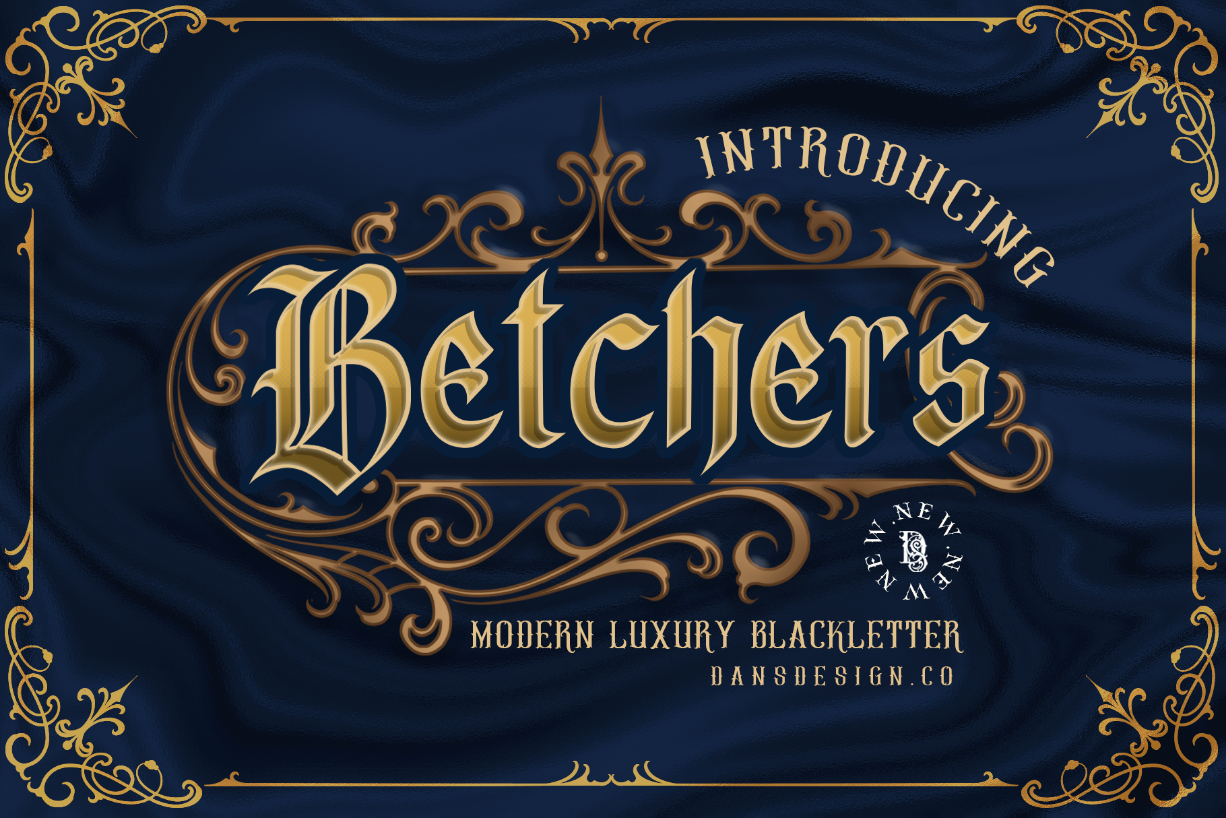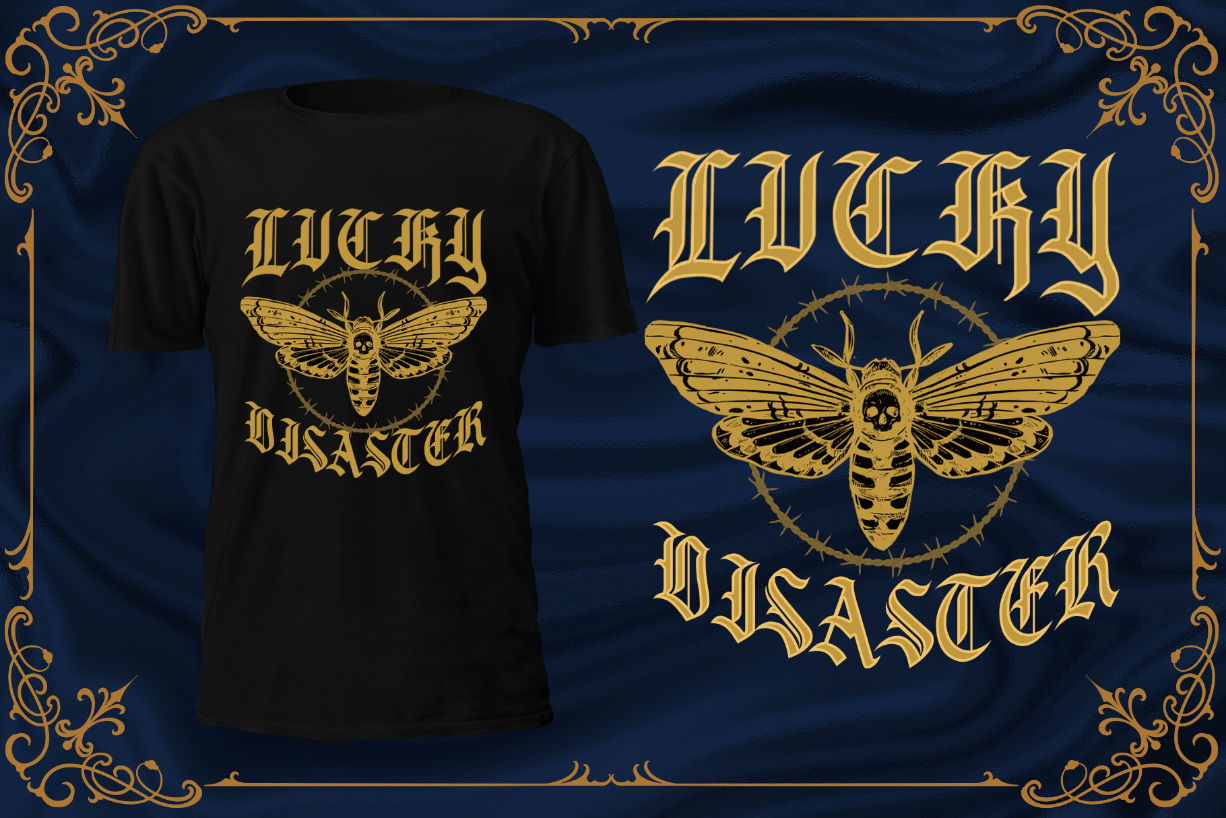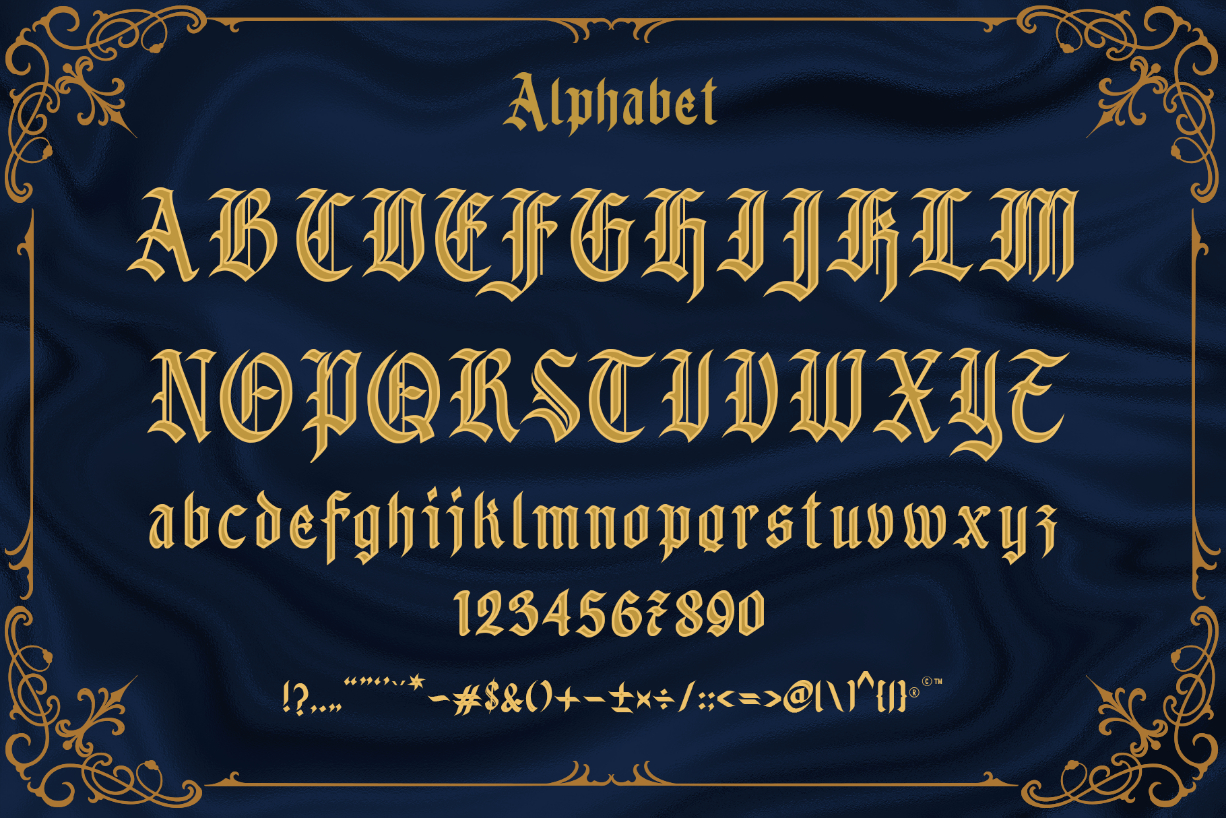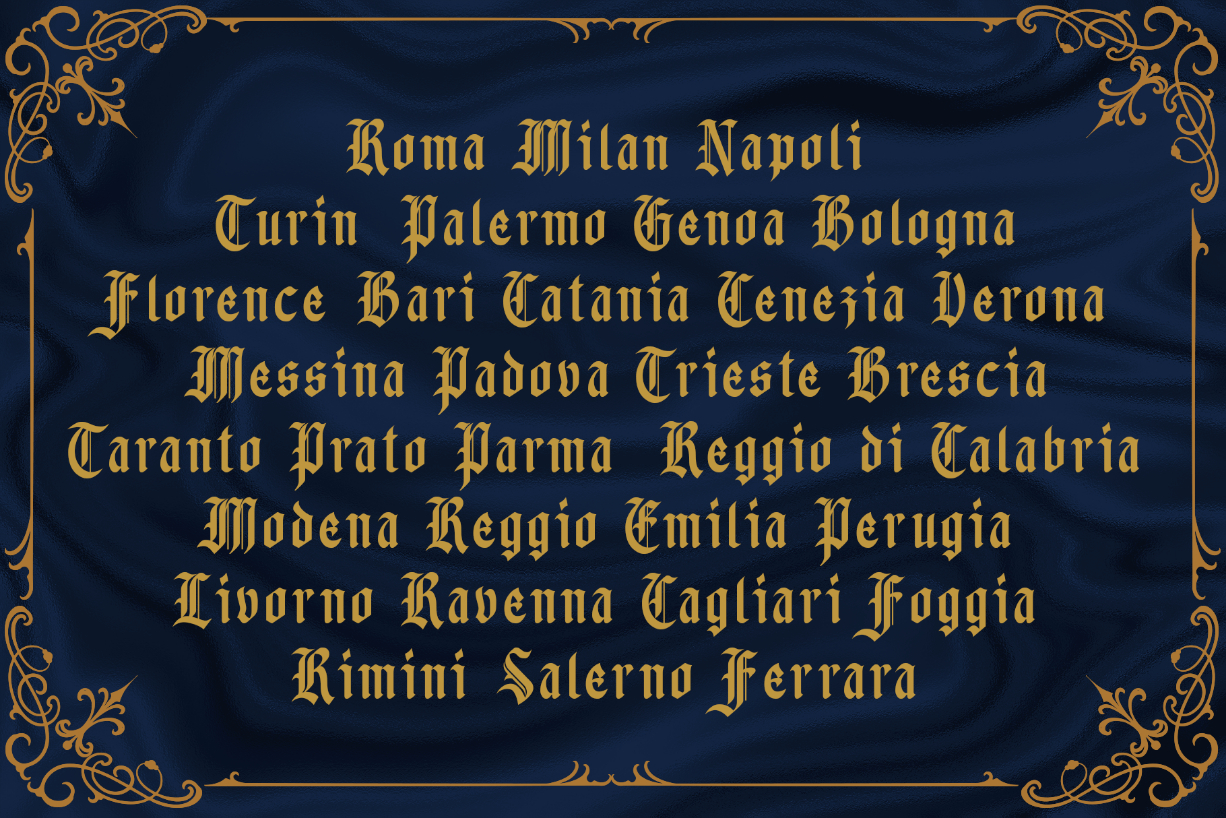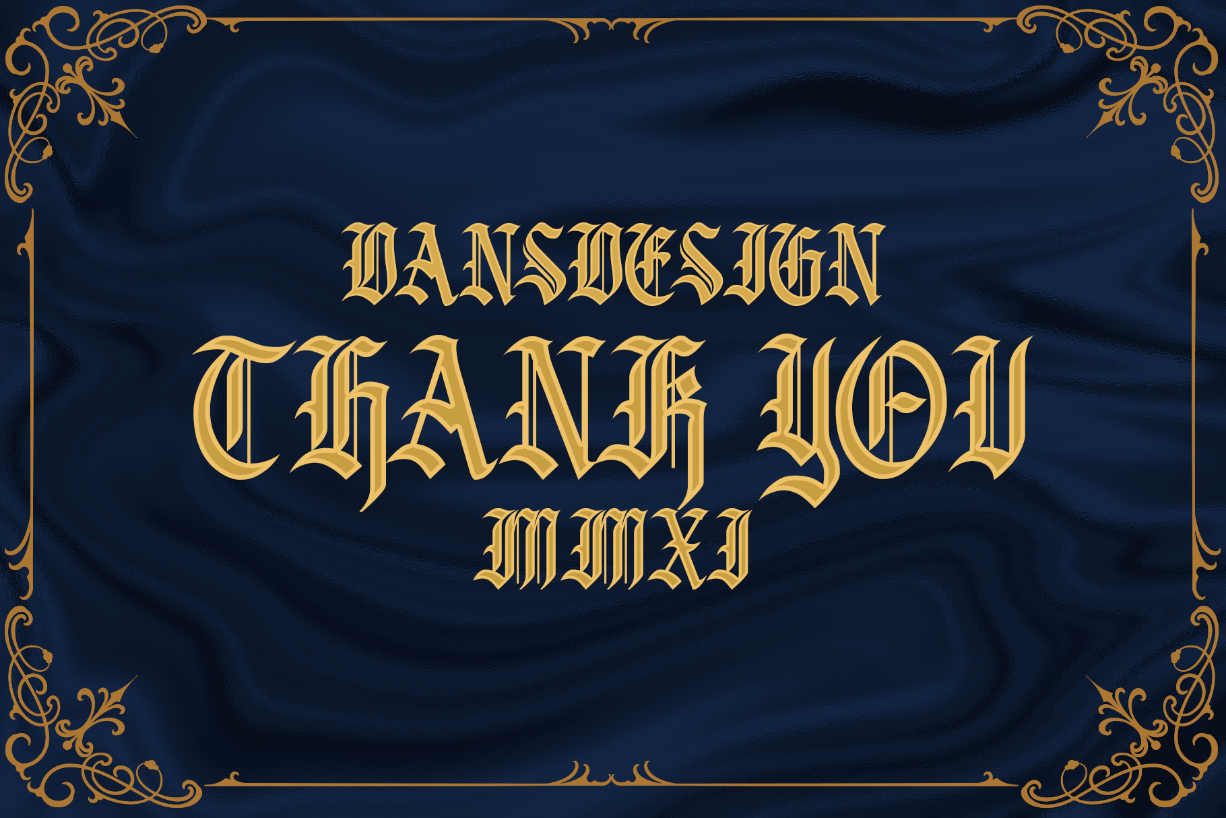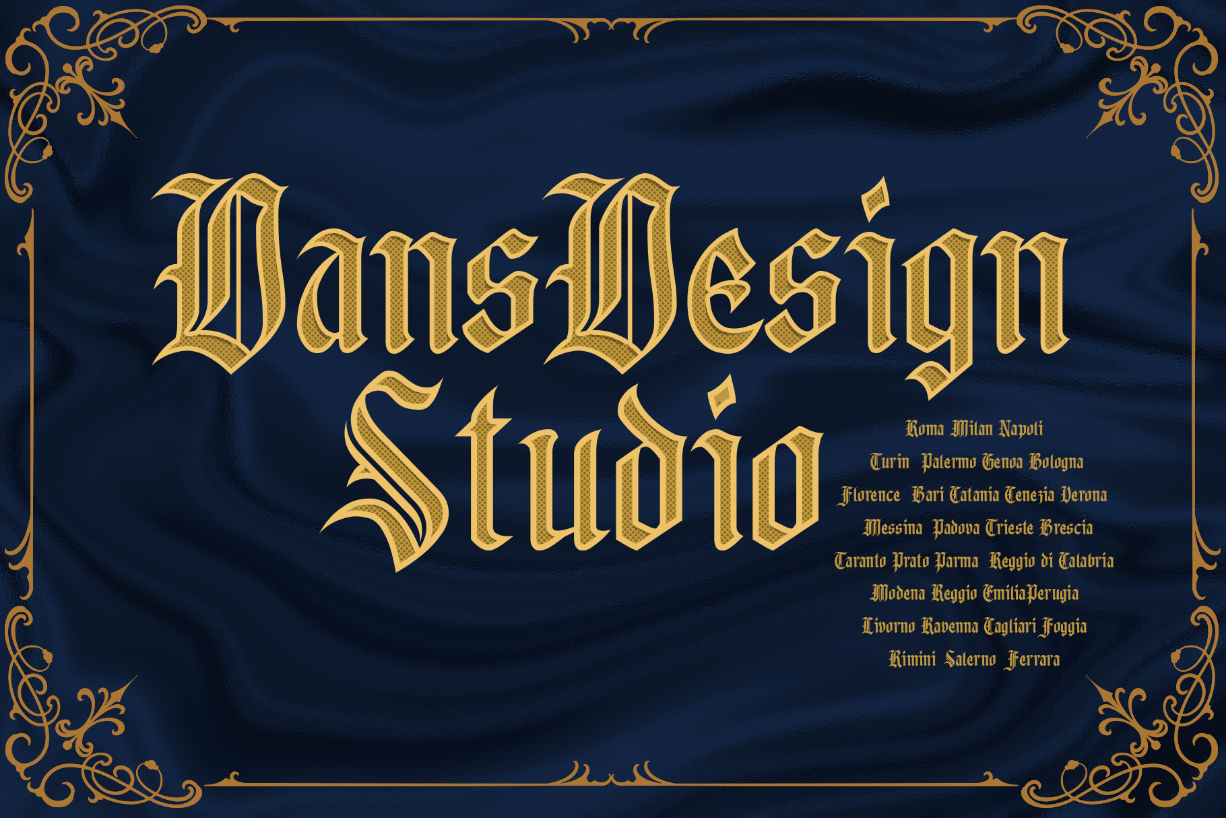
Betchers Font
About Betchers Font
Betchers is a splendid blackletter font that looks both solemn and exquisite. It would make a wonderful choice for tattoos, quotes, magazines, product packaging, and more!